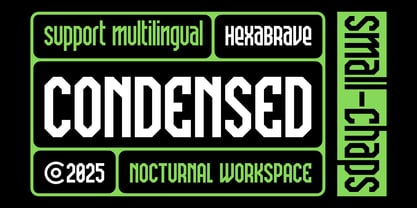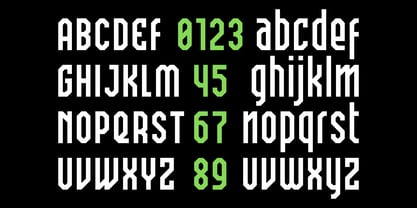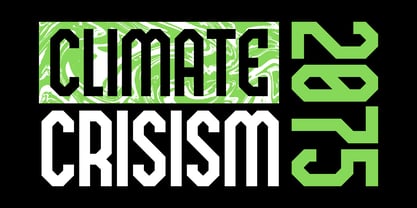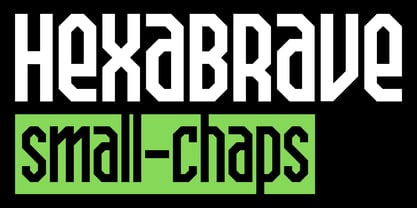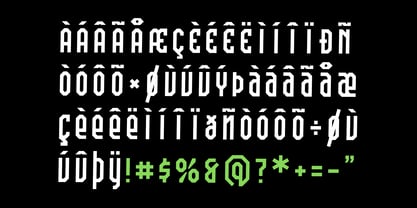
Hexa Brave
by Nocturnal Workspace
The Hexa Brave Font Family was designed by Farhan Tirta, Farhan Sudibya and published by Nocturnal Workspace. Hexa Brave contains 1 styles. More about this family
Hexa Brave: A Modern Geometric Display Font with Futuristic Energy
"Hexabrave" is a striking display font characterized by its strong geometric design and dynamic, futuristic vibe. With sharp letter structures, bold angles, and assertive proportions, this typeface is crafted to command attention and deliver messages with maximum impact.
Hexa Brave is ideal for:
• Technology or gaming logo designs.
• Film or game titles.
• Electronic music event or festival posters.
• Branding for modern and innovative products.
• Futuristic user interface (UI/UX) designs.
• Various projects requiring a contemporary and energetic aesthetic.
"Hexa Brave" will give your designs a fresh and sophisticated look, making it a perfect choice for projects that aim to appear modern and unconventional.
Designers: Farhan Tirta, Farhan Sudibya
Foundry: Nocturnal Workspace